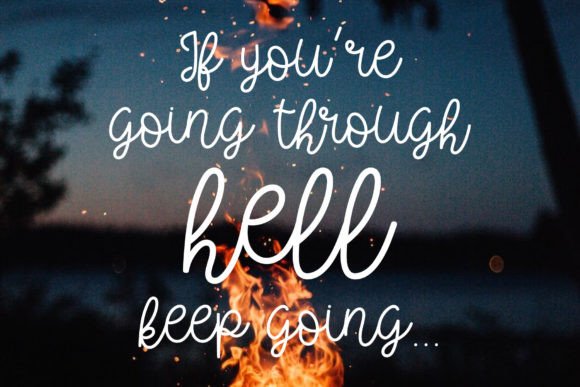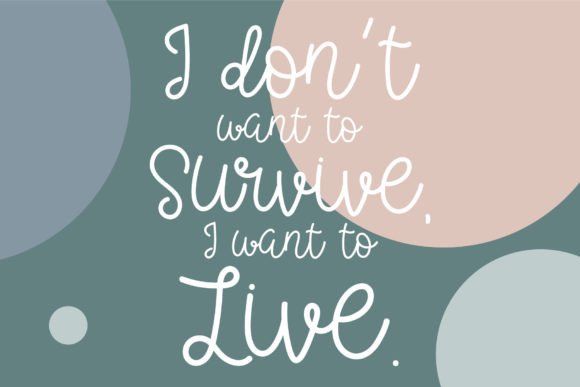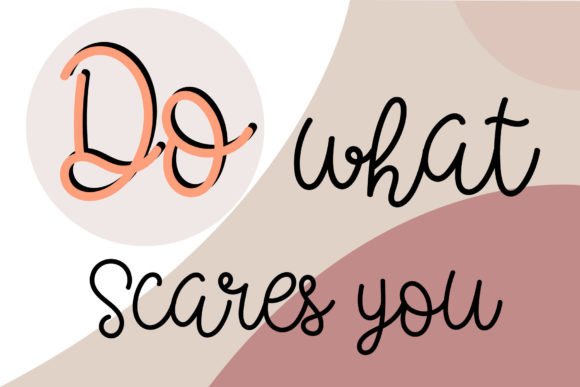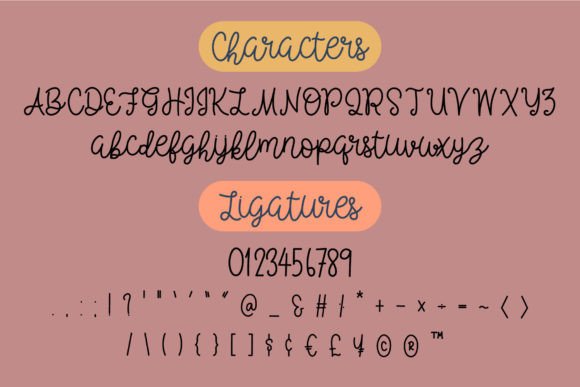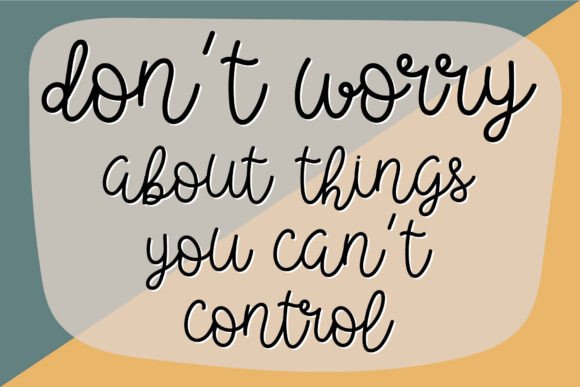
Introducing Heavy Cream Font: The Perfect Blend of Casual Charm and Versatility
In the world of typography, fonts play a crucial role in conveying the tone and personality of a brand or design. For designers and crafters looking for a font that exudes a sense of joy and approachability, Heavy Cream Font is an excellent choice. This simple, yet delightful handwritten font has been making waves in the design community, and for good reason. Its casual charm makes it appear wonderfully down-to-earth, readable, and, ultimately, incredibly versatile.
The Characteristics of Heavy Cream Font
Heavy Cream Font is a handwritten font that boasts a unique blend of simplicity and elegance. Its casual, laid-back vibe makes it perfect for a wide range of design applications, from branding and advertising to packaging and digital media. The font’s joyful and carefree personality shines through in its smooth, flowing lines and rounded edges, giving it a friendly and approachable feel.
What Makes Heavy Cream Font So Versatile?
One of the standout features of Heavy Cream Font is its incredible versatility. Whether you’re looking to create a bold, eye-catching headline or a subtle, easy-to-read body text, this font delivers. Its clear and legible design ensures that it can be used on a variety of backgrounds, including busy and complex patterns, without sacrificing readability.
Heavy Cream Font is also highly adaptable, making it suitable for use in a range of contexts, from digital media to print materials. Whether you’re designing a social media graphic, a website, or a brochure, this font is sure to make a lasting impression.
How to Use Heavy Cream Font in Your Designs
So, how can you make the most of Heavy Cream Font in your designs? Here are a few ideas to get you started:
- Pair it with bold colors: Heavy Cream Font looks amazing when paired with bright, bold colors. Try combining it with a vibrant background or a bold color scheme to create a statement piece.
- Use it as a headline: The font’s bold and playful personality makes it perfect for use as a headline. Try using it to grab attention and draw the reader in.
- Mix it with other fonts: Heavy Cream Font also works well when paired with other fonts. Try combining it with a sans-serif font for a bold and modern look, or with a script font for a more elegant feel.
Why Designers and Crafters Love Heavy Cream Font
So, why have designers and crafters fallen in love with Heavy Cream Font? Here are just a few reasons:
- Easy to read: The font’s clear and legible design makes it easy to read, even in small sizes.
- Versatile: Heavy Cream Font can be used in a wide range of design applications, from digital media to print materials.
- Unique personality: The font’s joyful and carefree personality shines through in its smooth, flowing lines and rounded edges.
In conclusion, Heavy Cream Font is a simple, yet delightful handwritten font that is sure to bring a touch of joy and approachability to any design. Its casual charm, versatility, and unique personality make it a standout choice for designers and crafters looking for a font that can deliver. Whether you’re looking to create a bold headline or a subtle body text, Heavy Cream Font is an excellent choice. So why not give it a try and see the difference it can make in your designs?